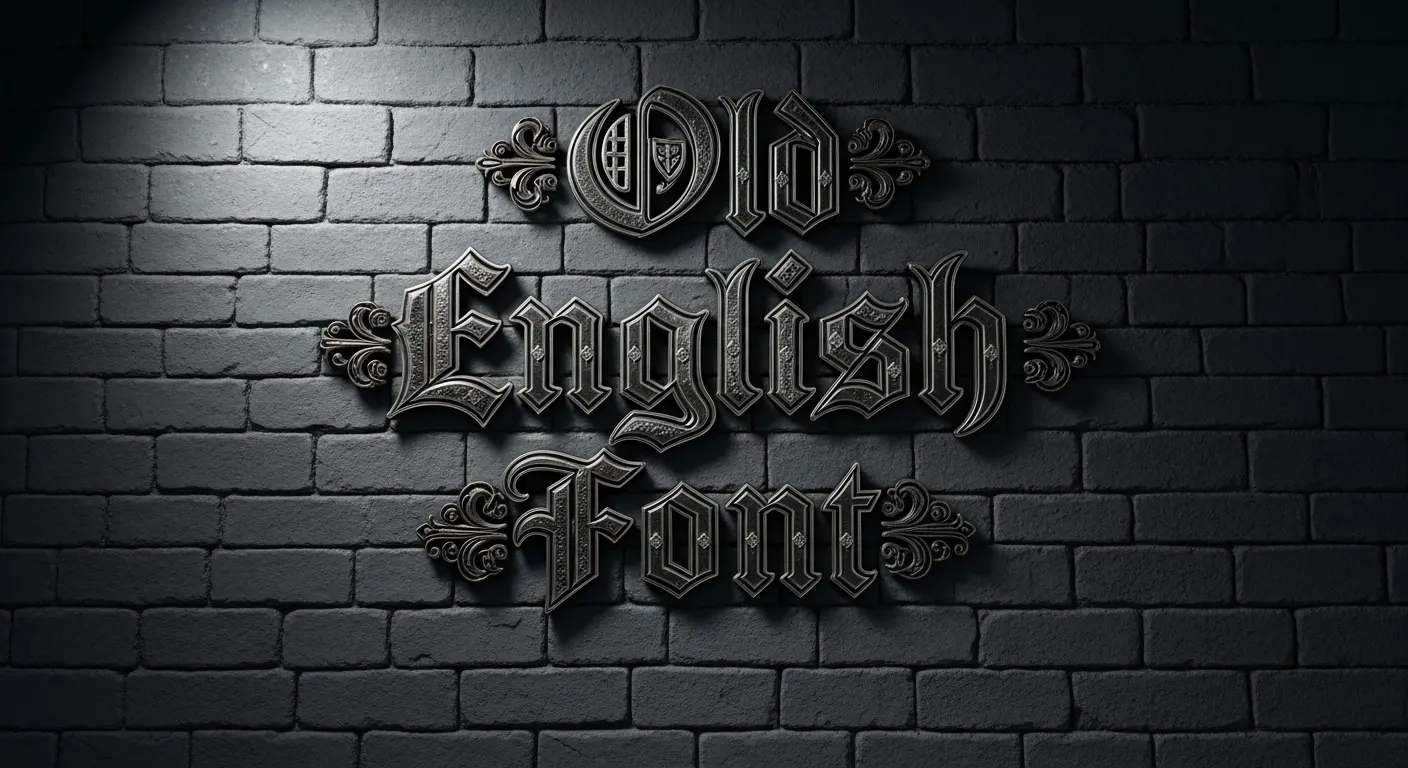
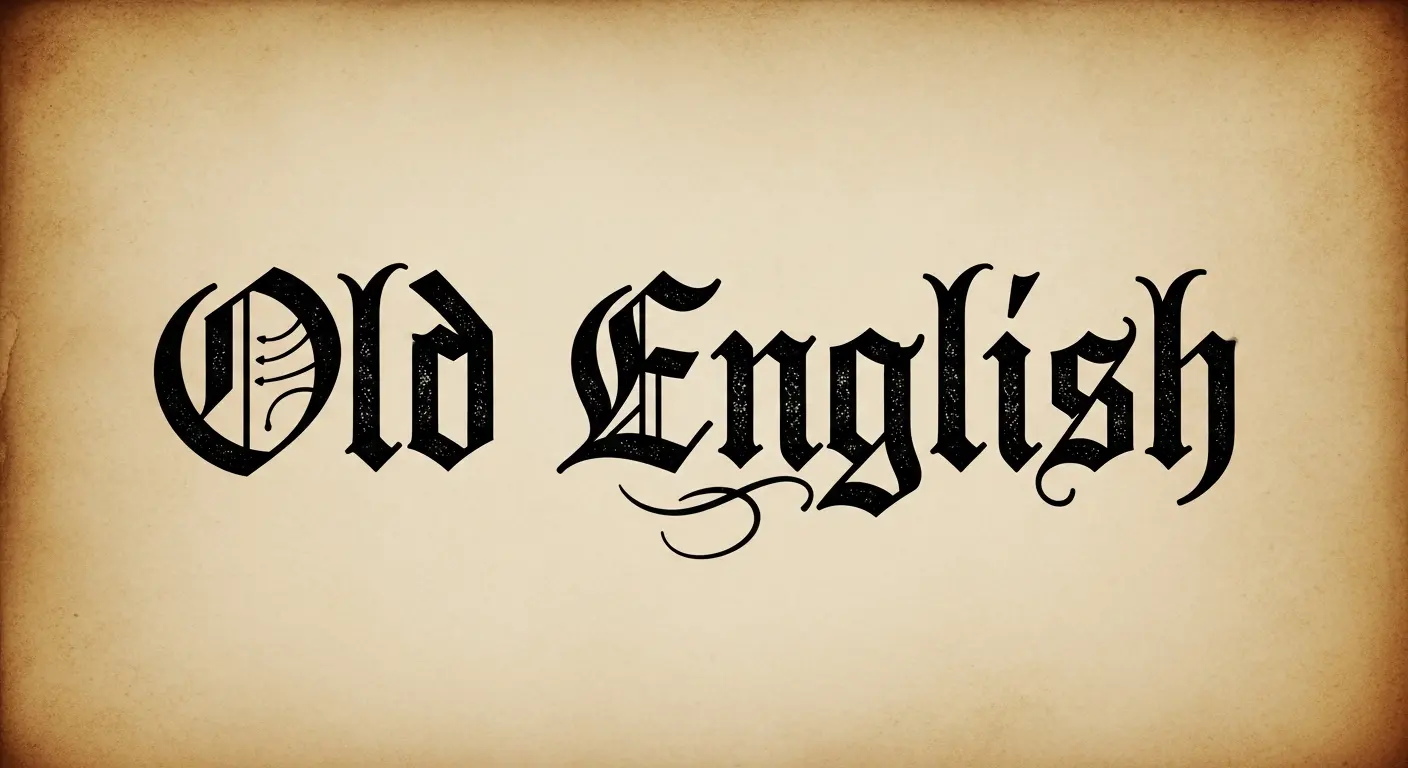
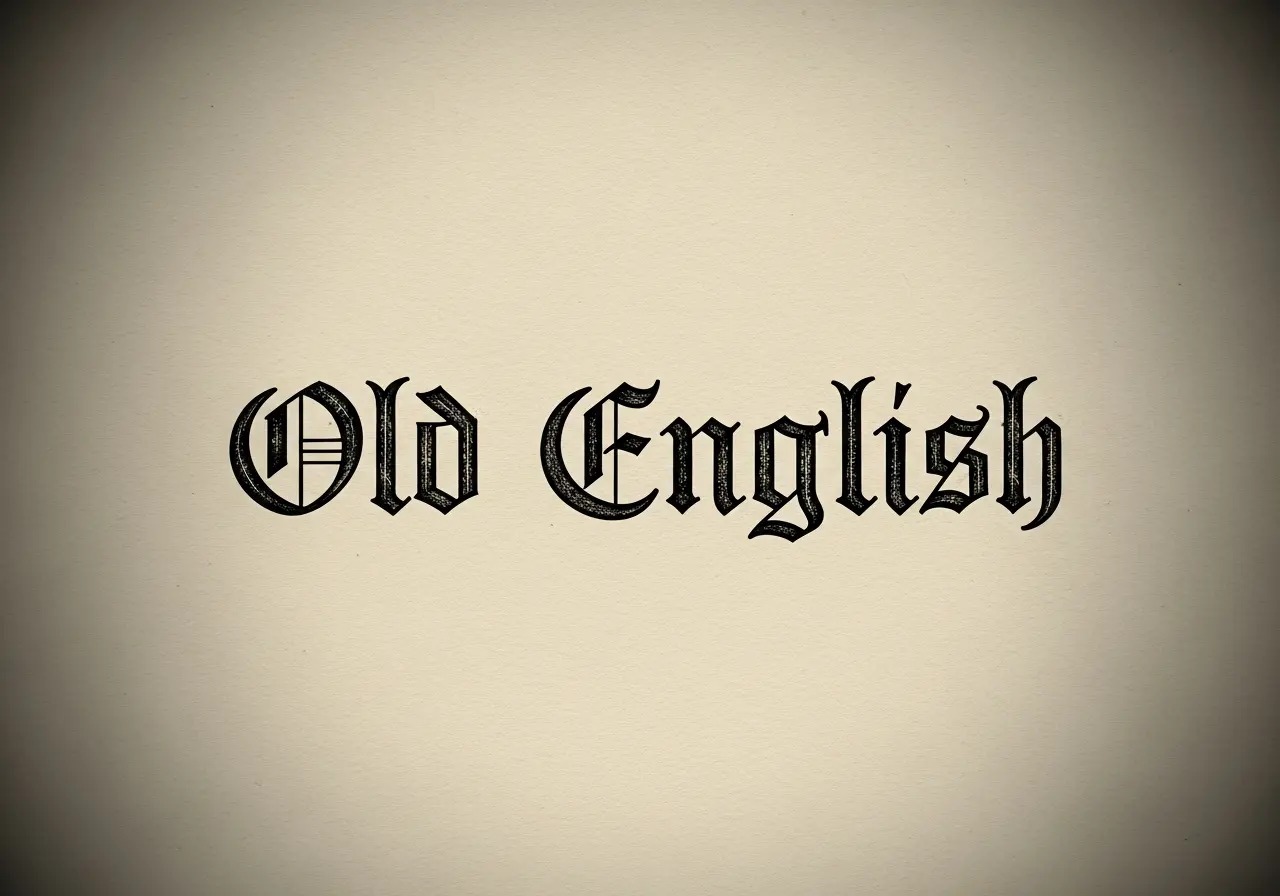
A faithful Old English style with dense, angular strokes and traditional ligatures. Perfect for historical posters, book covers, and formal branding that needs a timeless gothic voice.
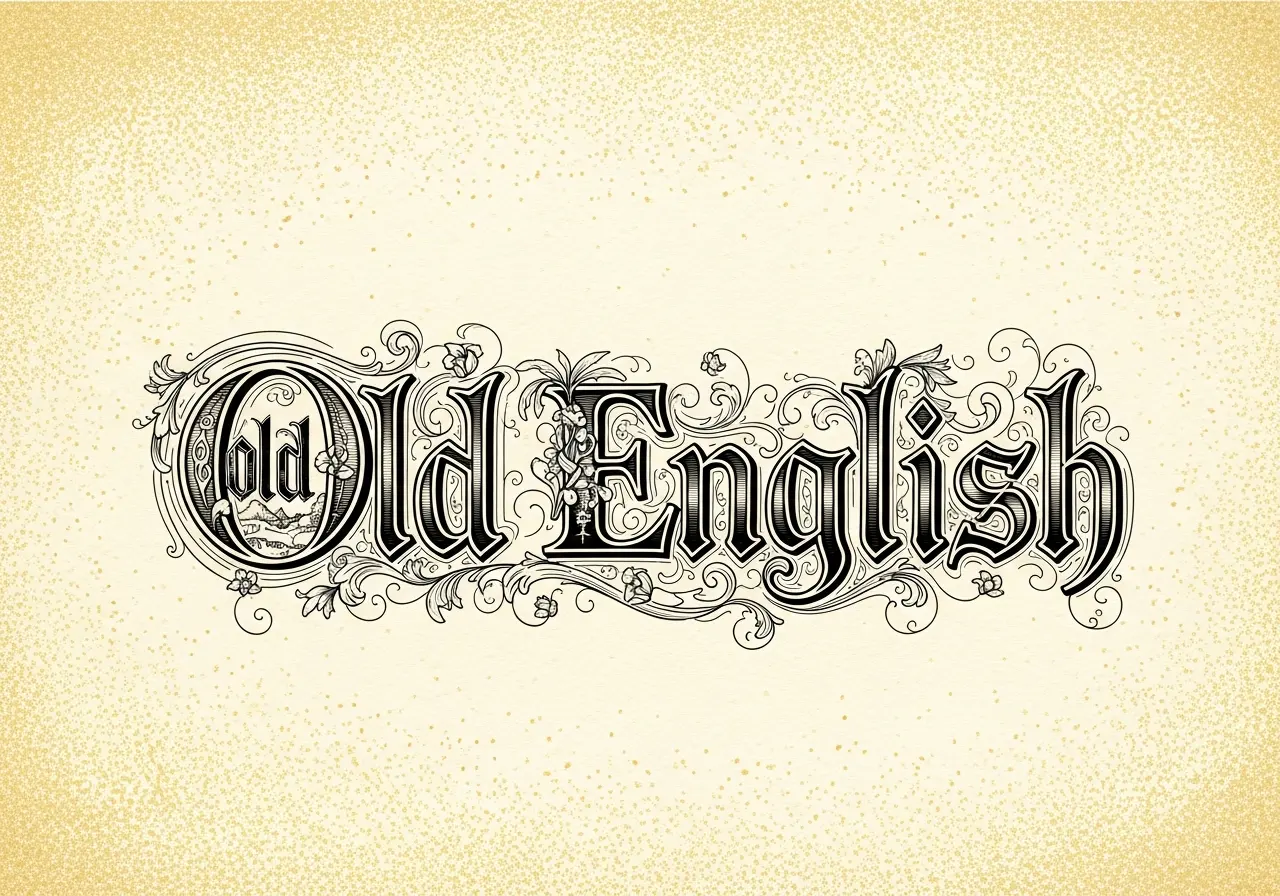
Blackletter forms enhanced with decorative swashes, crowns, and floral flourishes. Best for wedding invitations, certificates, or premium packaging that needs ornate Old English styling.
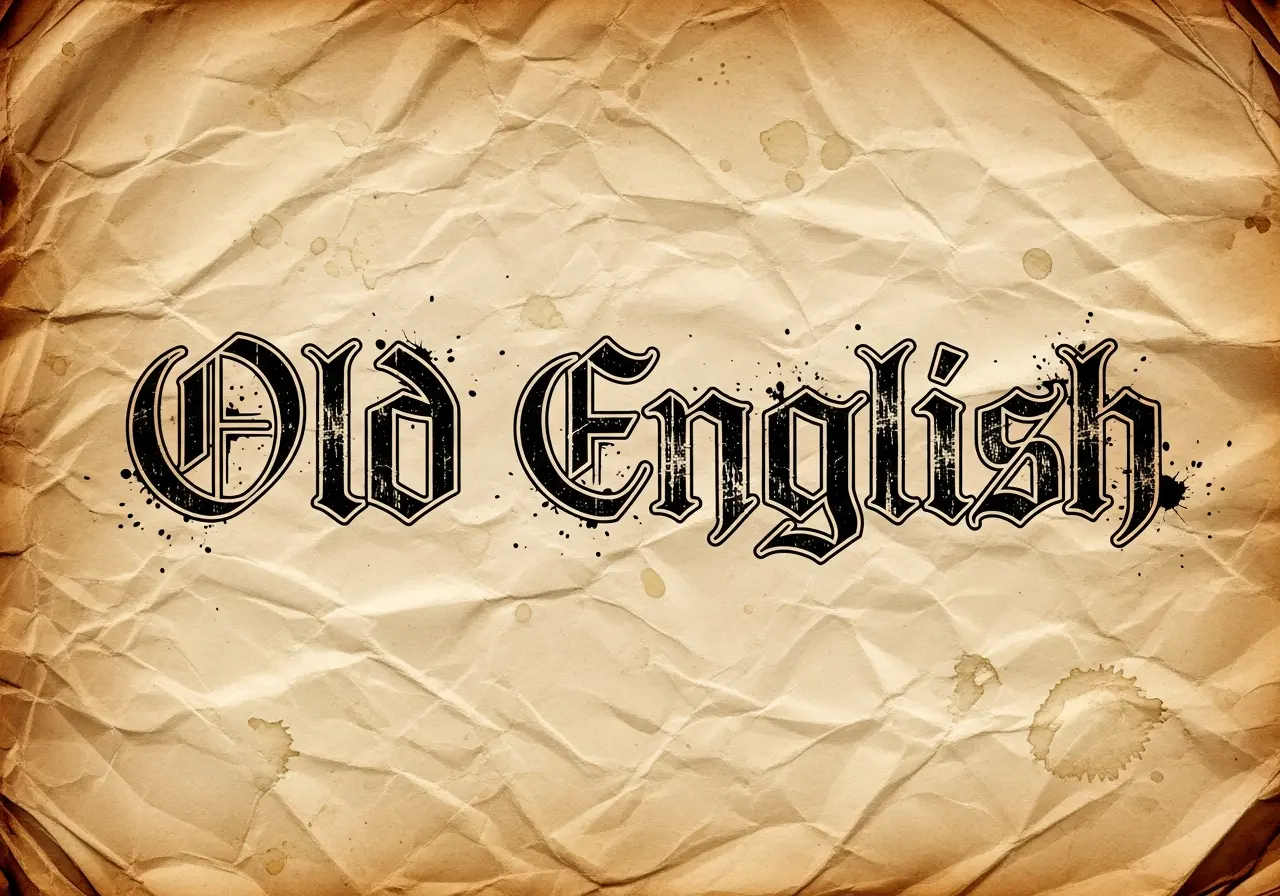
A distressed Old English font with rough ink edges and aged wear. Ideal for posters, album covers, and branding with a vintage or reclaimed aesthetic.
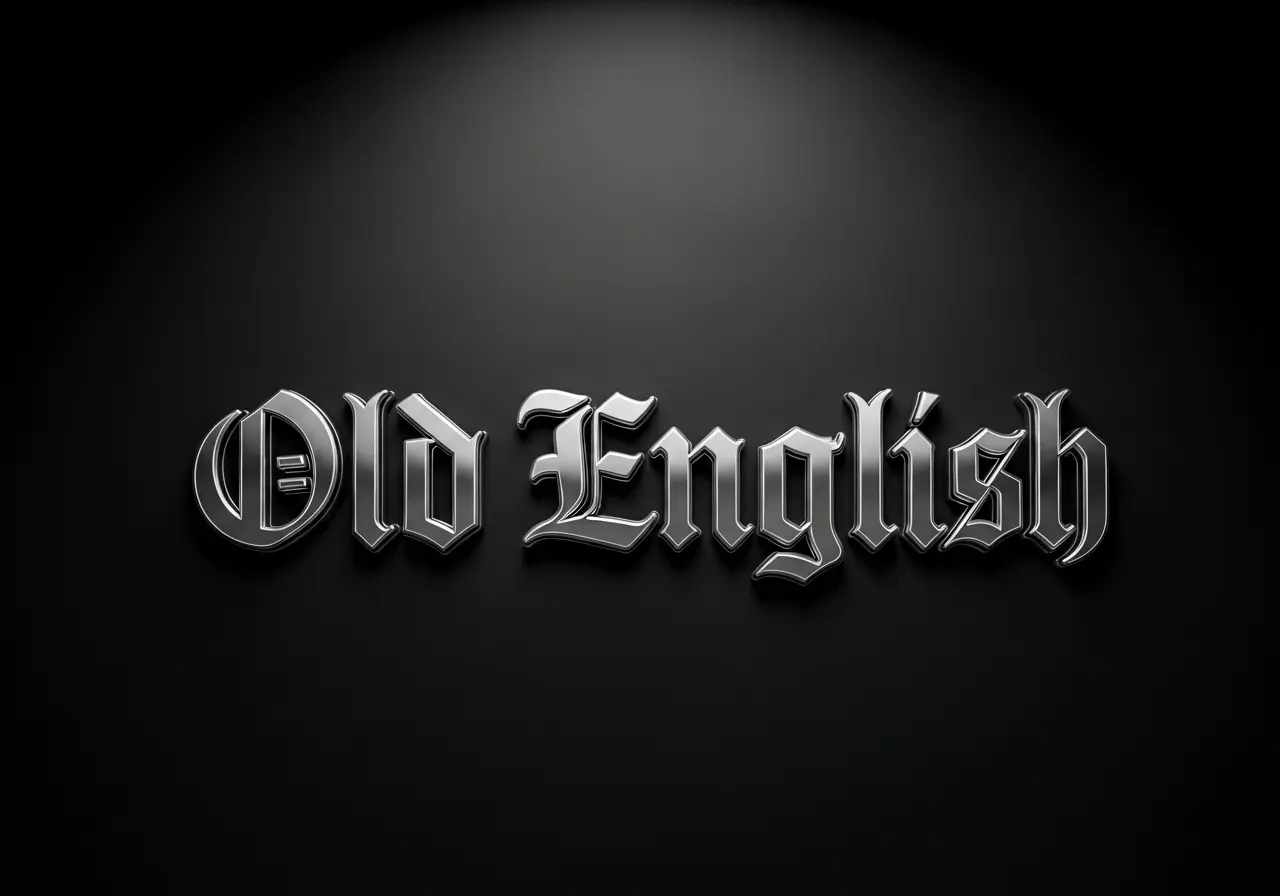
Bold gothic lettering with metallic emboss effects and subtle bevels. Suited for premium logos, signage, and merchandise that require a strong, luxurious Old English presence.
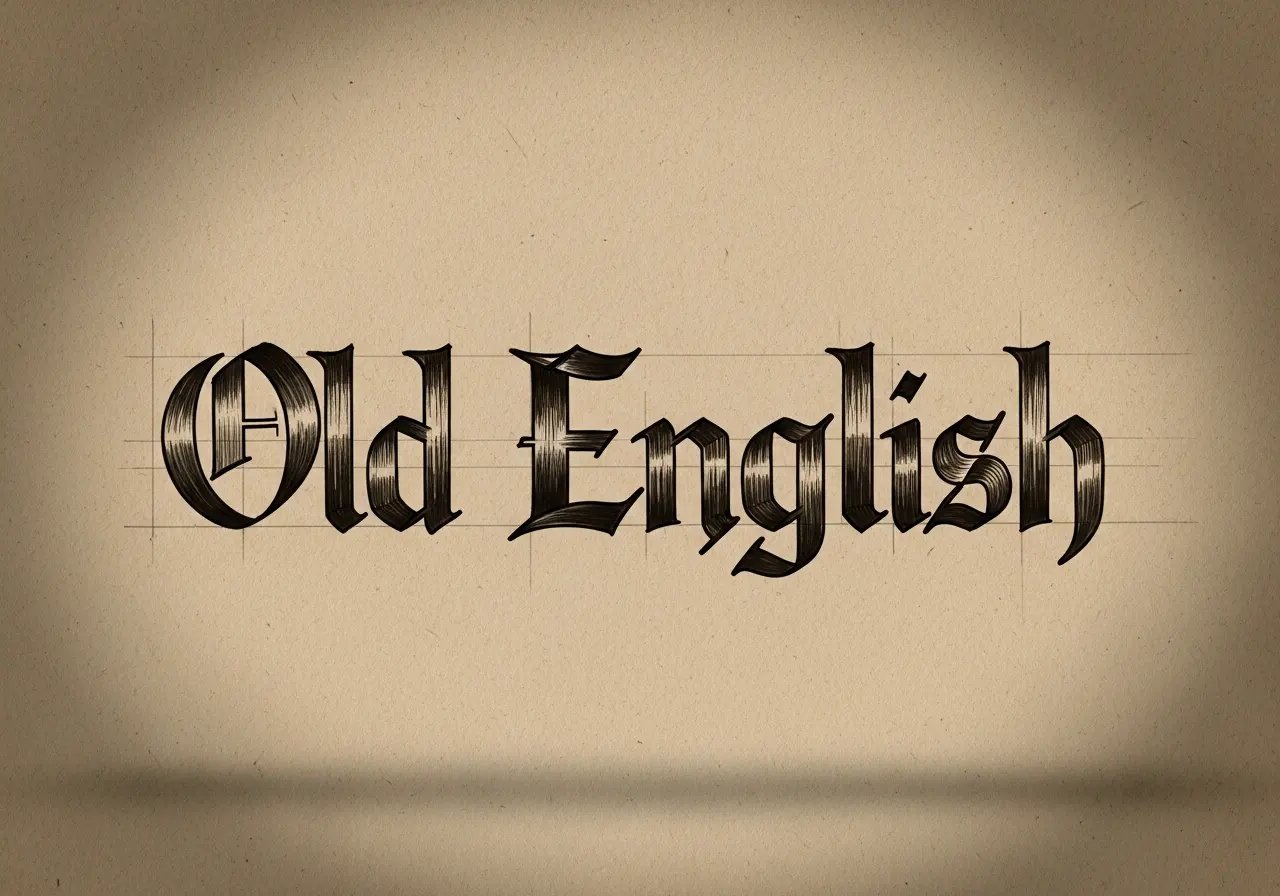
A more organic Old English look with hand-drawn irregularities and softer terminals. Great for artisan labels, craft branding, and social media graphics seeking authentic character.
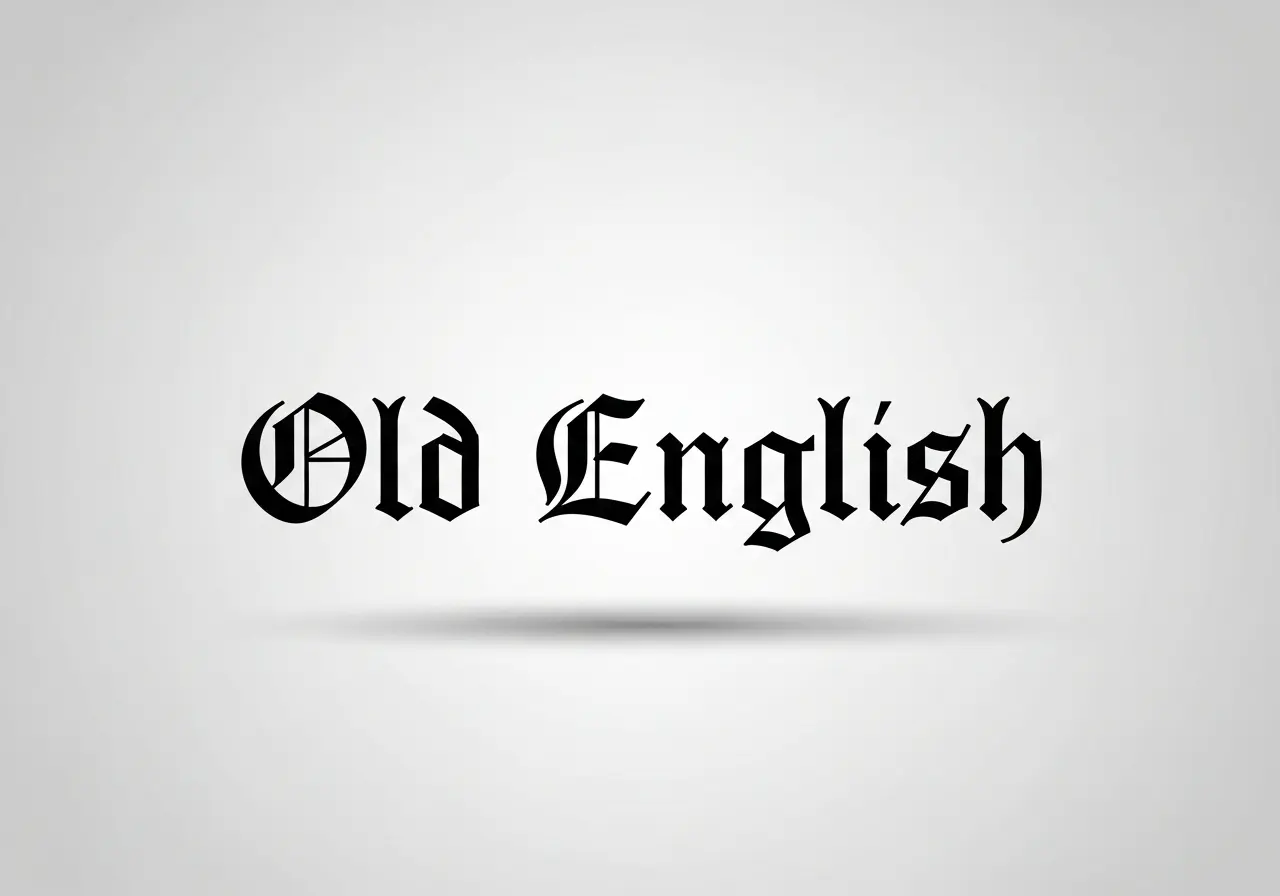
A streamlined Old English style that reduces ornament for contemporary legibility. Works well for editorial headers, web headlines, and modern branding using gothic roots.
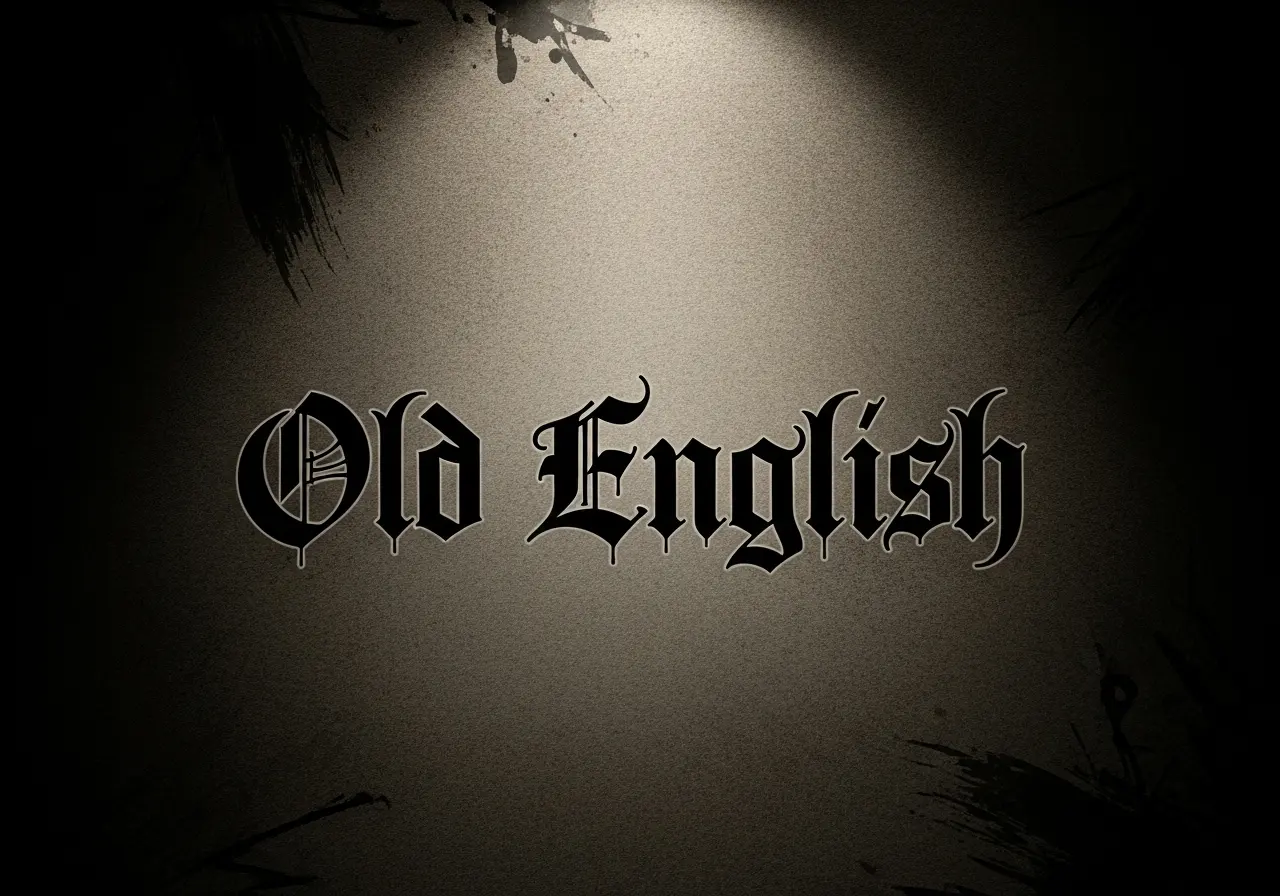
High-contrast Old English adapted for tattoo and apparel design, with exaggerated capitals and tight spacing. Ideal for merchandise, band art, and streetwear graphics.
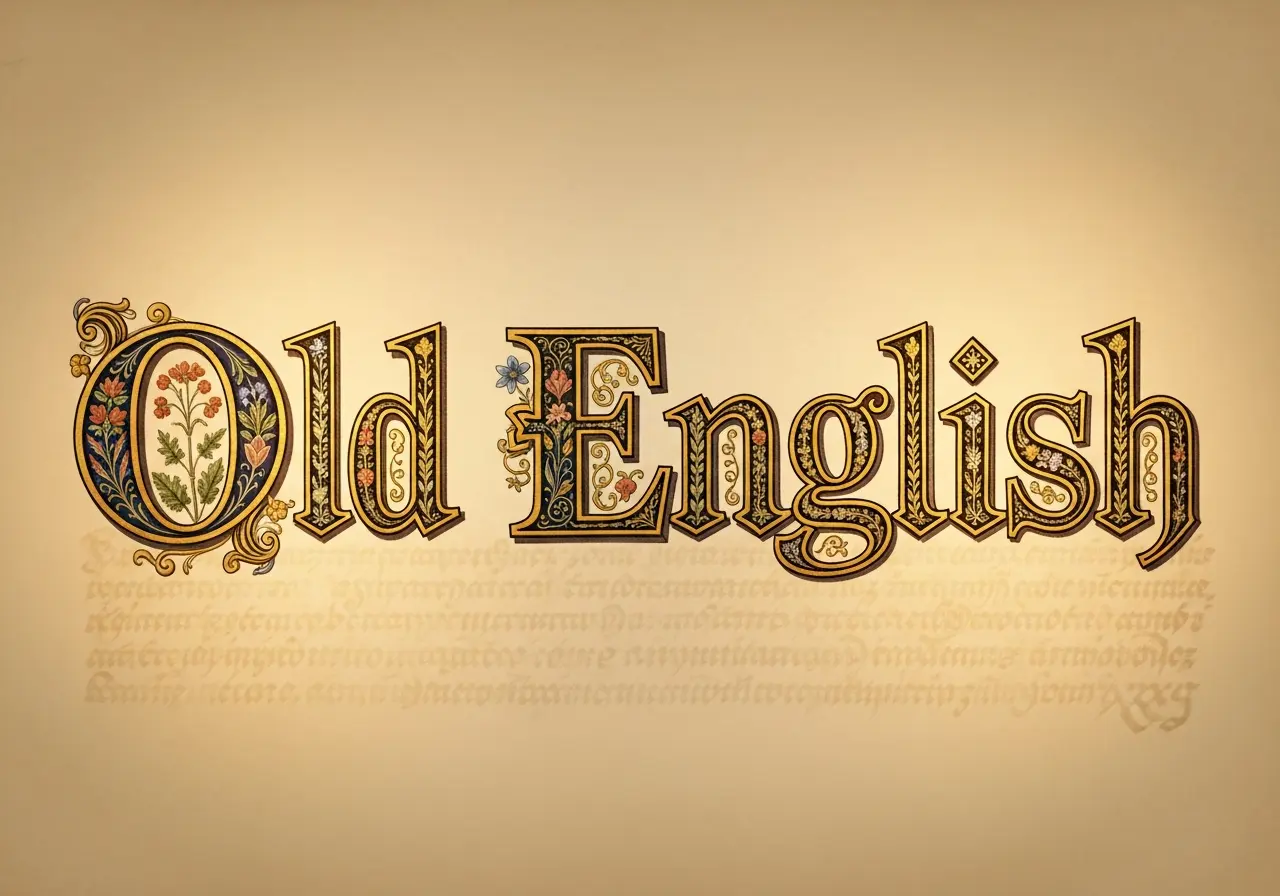
Decorative Old English capitals inspired by medieval manuscripts, with gold accents and miniature illustrations. Perfect for special edition covers, certificates, and heritage branding.
A rebellious Old English variant with rough cuts and asymmetrical ligatures. Great for posters, zines, and edgy social media art that needs a bold statement.
A softened Old English style mixing delicate swashes and readable forms, tailored for wedding stationery, invitations, and event signage with a classic romantic feel.